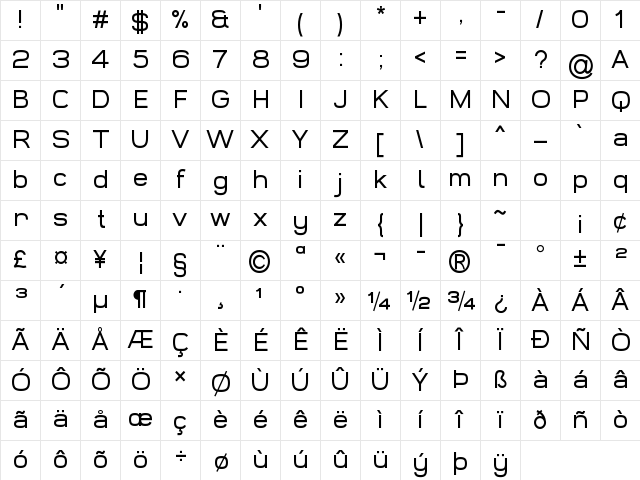
Widolte Regular Demo Regular
Foundry: StudioTypo
Designer: MEHMET ABACI
Design Context for Widolte Regular Demo
Widolte Regular Demo is a composed and adaptable typeface that performs quietly and consistently across a wide range of design contexts.